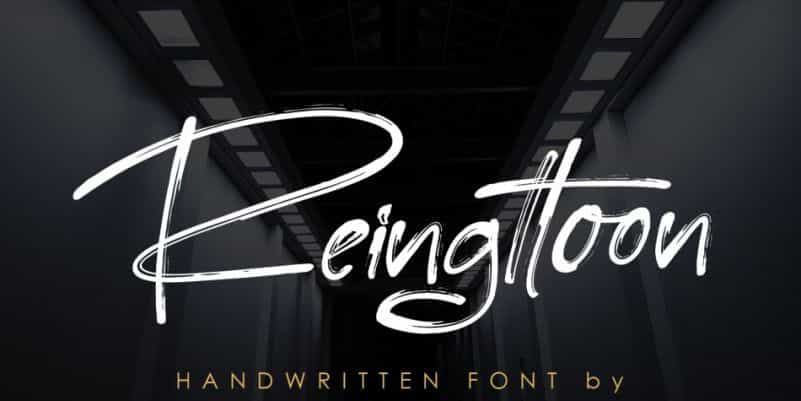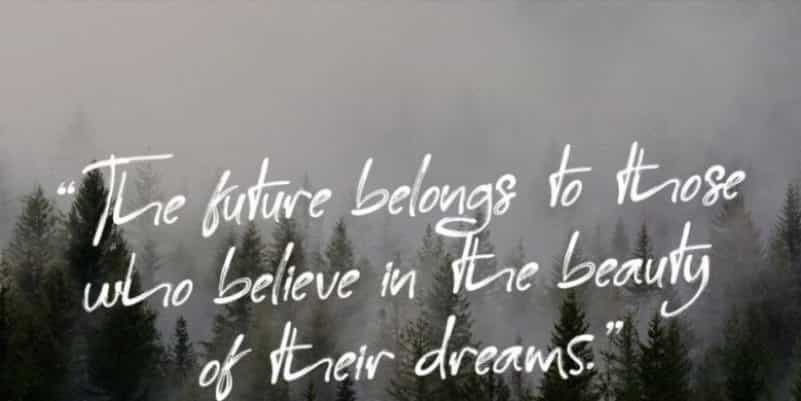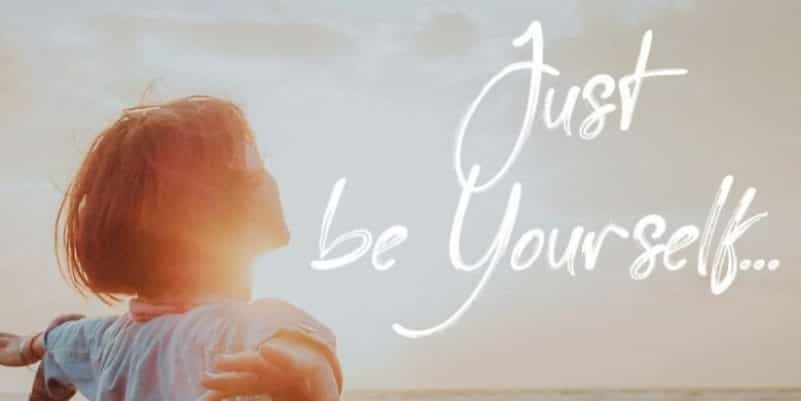
Reingttoon is a calligraphic handwritten font, which was drawn using a brush pen and has a smooth and dynamic structure. Admire its incredibly flexible design and integrate it into your work to design wonderful wedding invitations, amazing art for stationeries, engaging posts on social media, and much more!